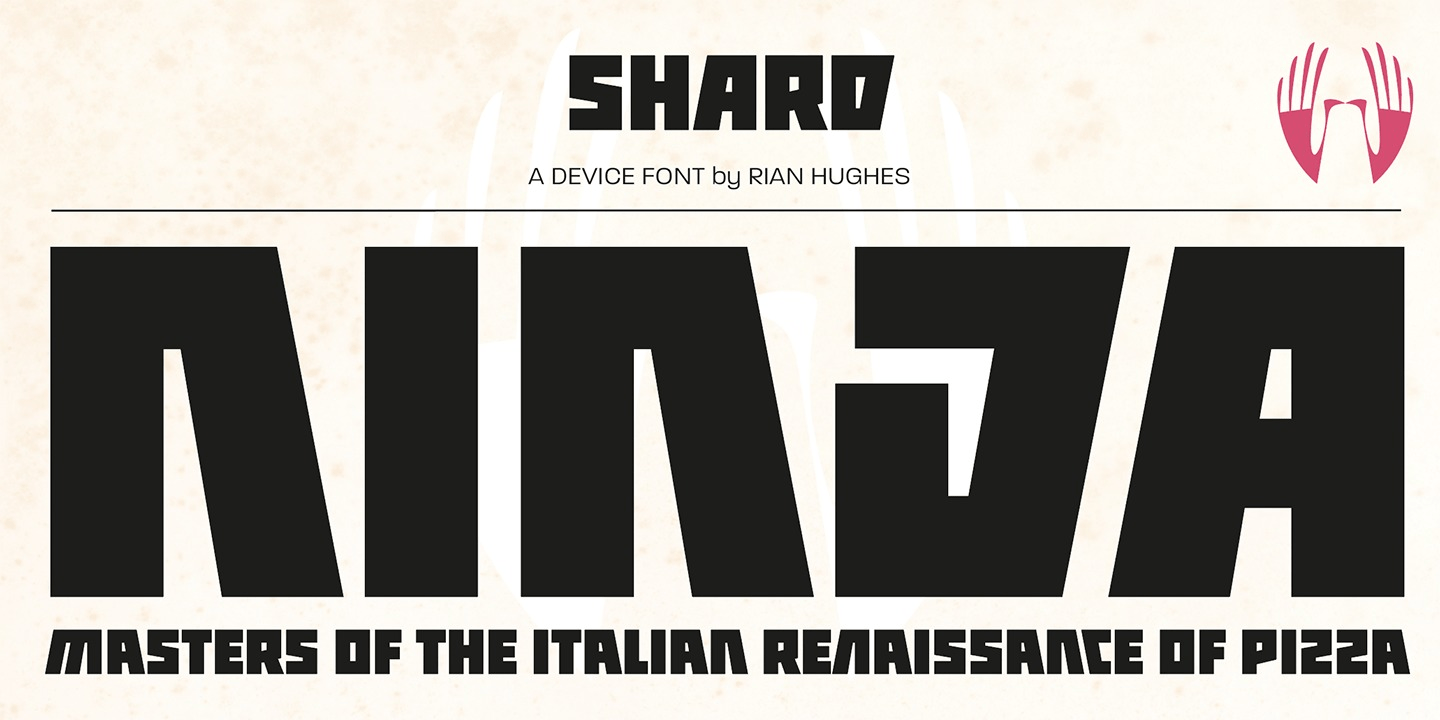
About Shard
Shard was originally commissioned for Nickelodeon\’s 3D reboot of the Teenage Mutant Ninja Turtles franchise. It complemented the show\’s new angular logo, which Rian Hughes also designed. There are alternative versions of many letters available in the…